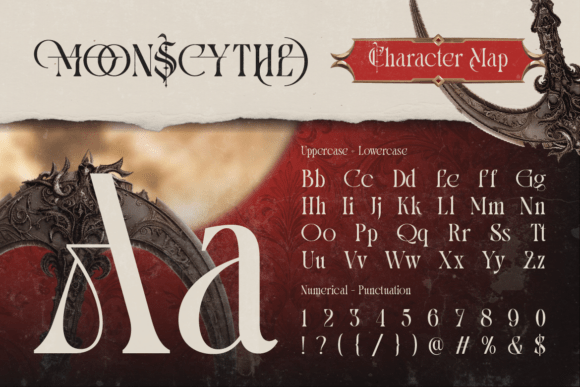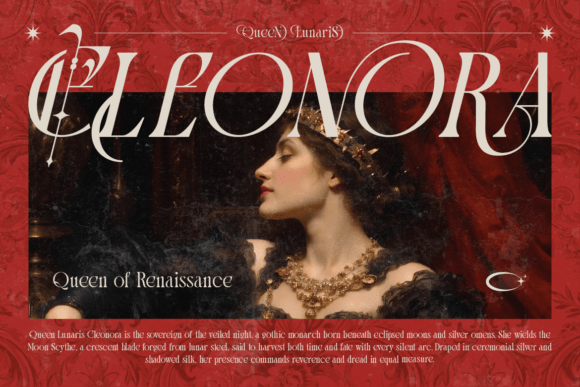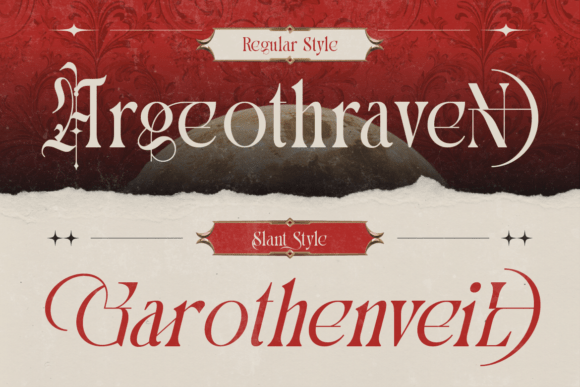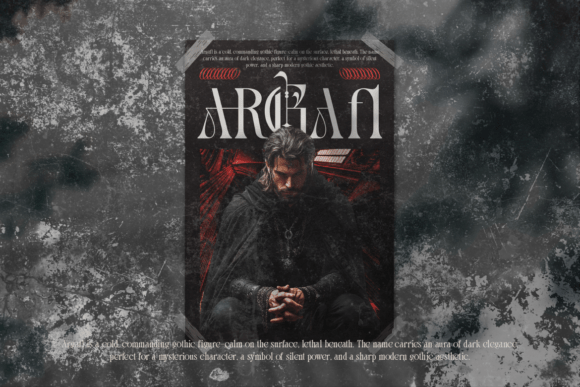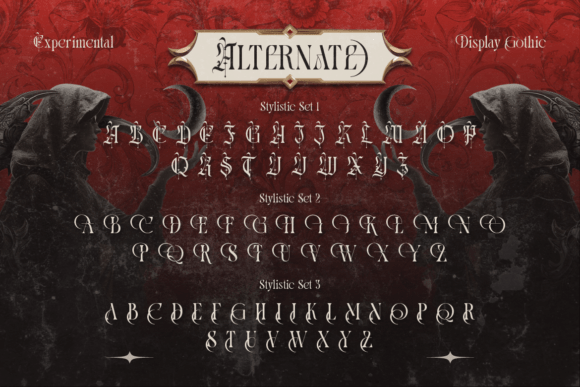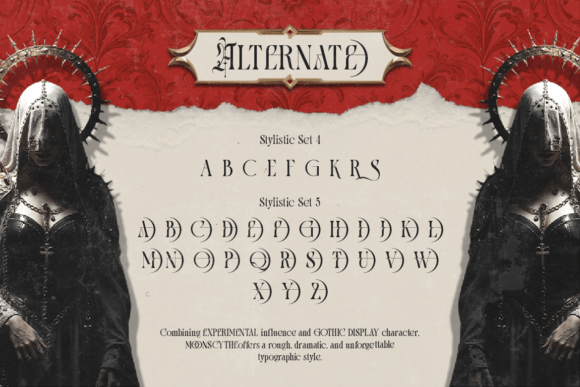
Introduction to Moonscythe Font
As a designer, have you ever found yourself stuck in a creative rut, searching for the perfect font to give your project that extra oomph? I know I have. It’s that moment when you stumble upon a font that not only speaks to your aesthetic but also sparks a sense of wonder and magic. For me, that moment came when I discovered the Moonscythe Font.
This dramatic display gothic font is a game-changer for designers looking to add a touch of mystery and sophistication to their creative projects. With its unique blend of sharp serifs and curved, crescent moon-like details, Moonscythe Font is the perfect design resource for anyone looking to create a high-quality, visually striking piece. Whether you’re working on a dark fantasy branding project or a medieval-themed editorial, this font is sure to transport your audience to a world of wonder and awe.
- Moonscythe Font is available in 4 different styles, each with its own unique characteristics
Honest Review: Moonscythe Font
I recently had the chance to experiment with the Moonscythe Font, and I must say it’s a fantastic addition to any designer’s toolkit. This font is a high-quality, free download that’s perfect for any creative project that needs a touch of elegance and sophistication.
- ✨ The Moonscythe Font has a unique and captivating design that’s sure to make your project stand out.
- ✨ The font is available in a range of weights and styles, giving designers a lot of flexibility when it comes to customizing their project.
However, there are a few limitations to be aware of: ⚠️ The font does not have a transparent background, which may make it difficult to use on images with complex backgrounds. Additionally, the font may not be suitable for projects that require a very modern or edgy look.
Overall, I’m really impressed with the Moonscythe Font. It’s a high-quality, free resource that’s perfect for designers who want to add a touch of elegance and sophistication to their project. Whether you’re working on a wedding invitation, a business logo, or a website, the Moonscythe Font is definitely worth checking out.
Common Use Cases for Moonscythe Font
The Moonscythe Font is suitable for various design applications, including graphic design, digital art, and creative writing. Its versatility and high-quality design make it an ideal choice for any project that requires a unique and eye-catching font.